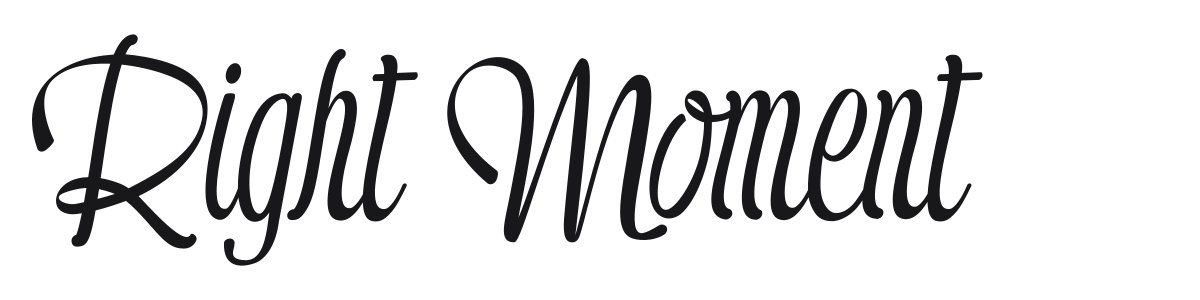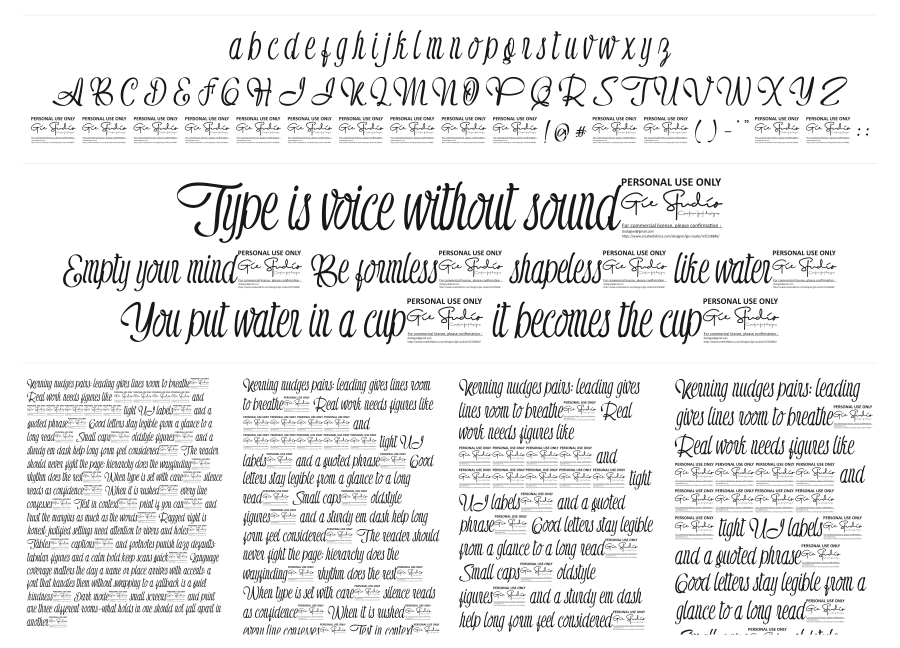
Right Moment
Right Moment is a flowing casual script with the warm, inky energy of hand-lettered signage. Thick downstrokes and wispy upstrokes create a lively contrast, while tall sweeping ascenders give it an upbeat, confident rhythm. It sits comfortably in branding, packaging, and any headline that needs a personal, handcrafted touch.